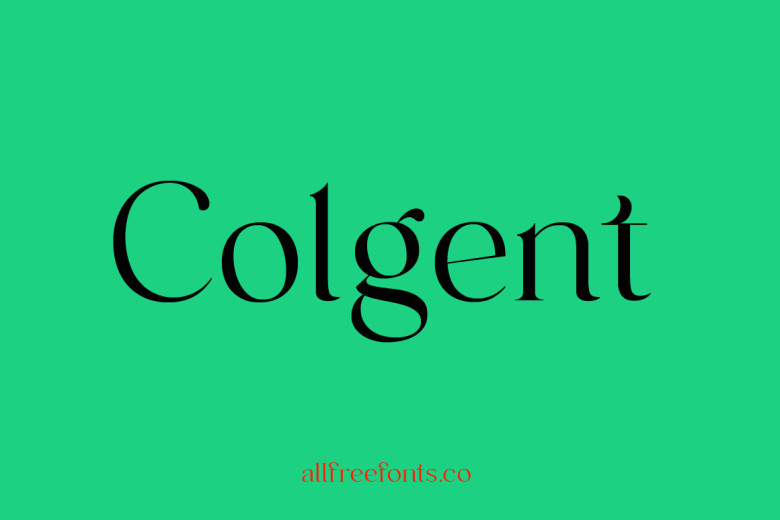
Colgent Font
Colgent is a modern serif font with a unique style, a light and high contrast font perfect for feminine logo signs, fashion heads & editorial designs. Colgent is perfect for branding projects, Logo design, Clothing Branding, packaging, magazine headings, advertising, T-shirts, postcards and much more.
Colgent Serif Font